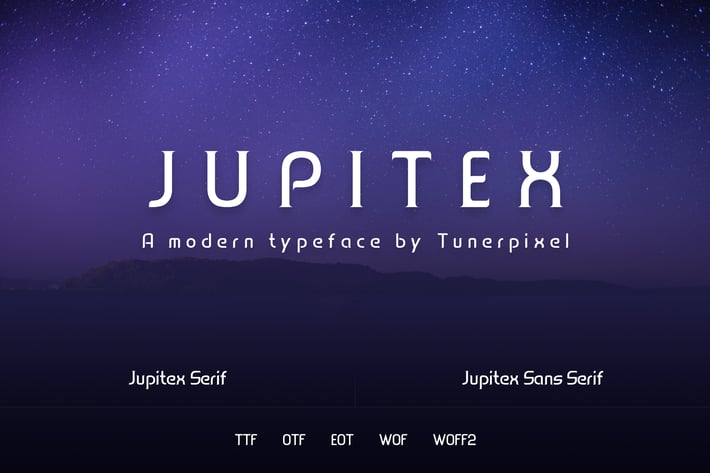
Jupitex - A Modern Font
Jupitex is a brand new modern typeface that we’ve created especially for a beautiful Headline, Logo, T-shirt, Poster, Magazine, Book Cover, etc designs.
This package includes both Jupitex Serif and Jupitex Sans Serif fonts in both Desktop and Web font version. It also has both capital and small case letters.